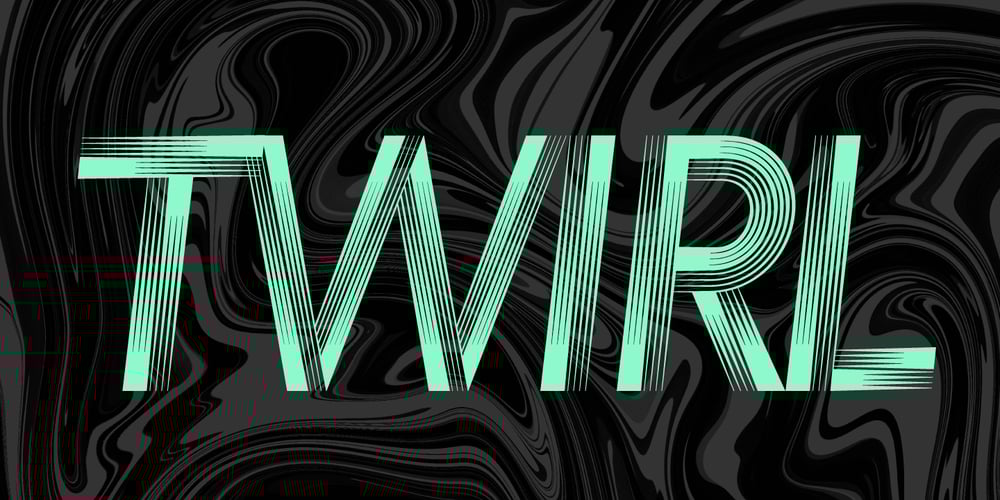
Voguing
Voguing font
Voguing Font Family was designed by Giuseppe Salerno, Paco González and published by Resistenza. Voguing contains 2 styles and family package options. Voguing Font: A Tribute to ’80s/’90s Glamour and Artistic ExpressionStep into the world of voguing font, where the vibrant energy of the ’80s and ’90s New York ballroom scene meets the sleek glamour of modern design. Inspired by the movement and sophistication of this iconic era, Voguing is a sans serif multiline font that embodies the spirit of artistic expression and self-affirmation.Drawing from the lineage of our first font release, Afrobeat, Voguing takes multiline strokes to new heights, utilizing them to create a dynamic 3D effect that dances across the page. Each stroke is carefully crafted to evoke the fluidity and motion inherent in voguing, resulting in a font that pulsates with life and energy.But Voguing isn’t just about style – it’s also about substance. With three distinct styles – regular, slanted, and backslanted – Voguing offers versatility and flexibility, allowing you to tailor your typography to suit any project or mood. And with a set of ligatures accessible through OpenType, you have the freedom to customize your text and make it truly your own.Its eye-catching effect is perfect for headlines, branding, magazine layouts, social media posts, website headers, posters, ads, stationery designs, and more. Wherever you need to grab attention and leave a lasting impression, Voguing delivers.For an added touch of contemporary elegance, consider pairing Voguing with Nautica Sottile Modern letterforms. Together, they create a harmonious balance of geometric precision and fluid movement, elevating your design to new heights of sophistication.More About Opentype Features: https://bit.ly/opentype-rsz